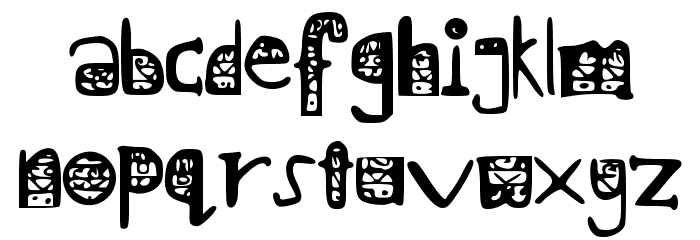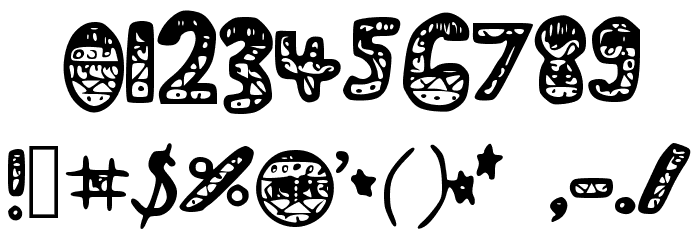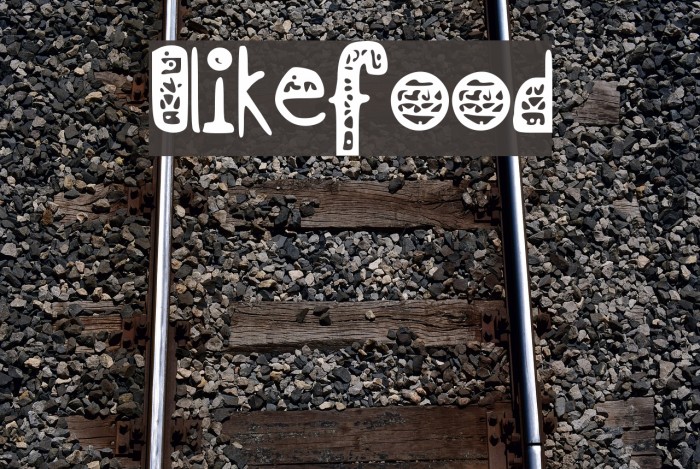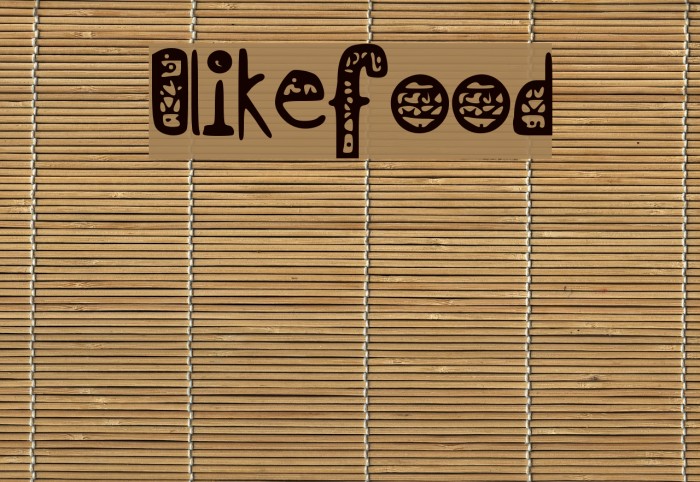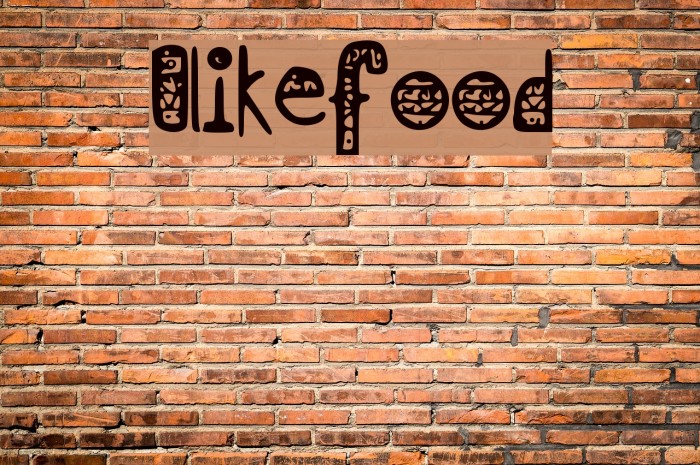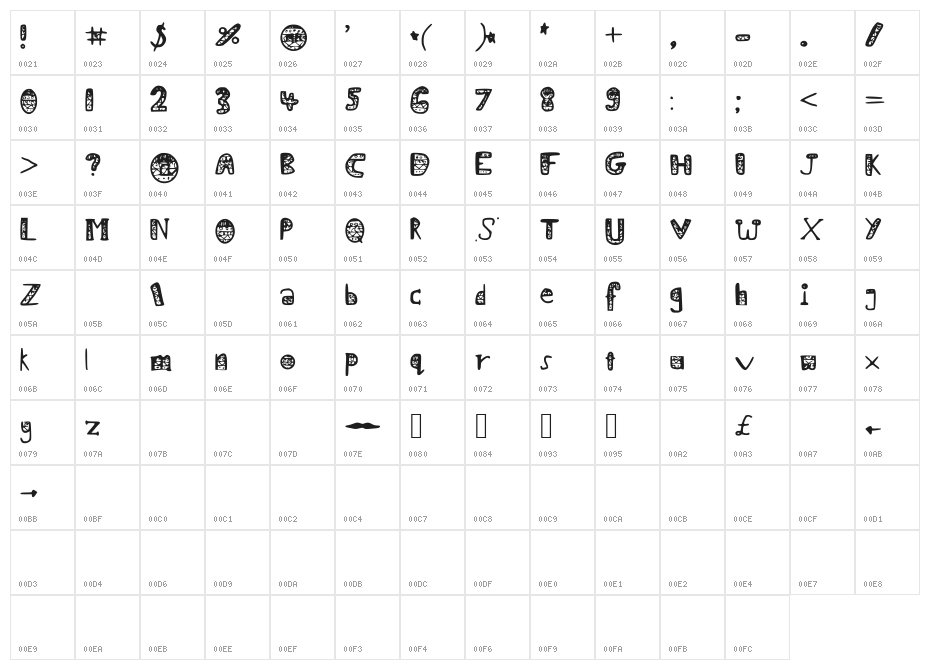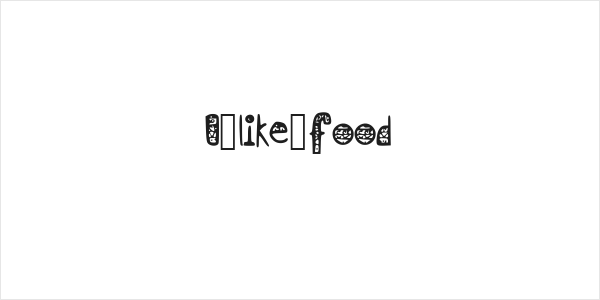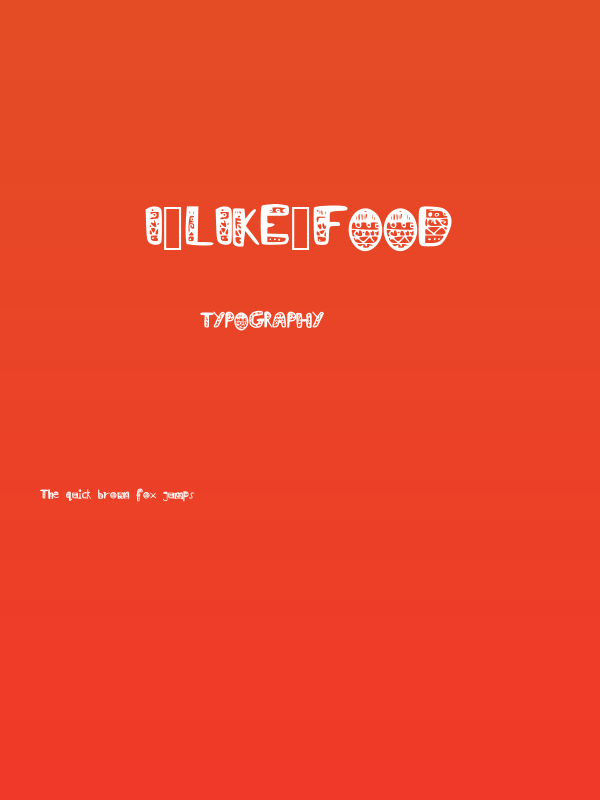
I_like_food Font
This playful and whimsical font features bold, rounded characters filled with intricate patterns and designs. Each letter and number is uniquely decorated, giving it a handcrafted and artistic feel. The font's style is reminiscent of doodles or sketches, with a lively and energetic appearance. The characters are well-defined, with a consistent thickness throughout, making them easily readable despite their decorative nature. This font is perfect for projects that require a fun and creative touch, such as children's books, posters, or party invitations.
A playful, decorative font with bold, patterned characters.
- Proposed Projects: Ideal for children's books, playful posters, party invitations, and creative branding.
- Overall Style: Whimsical, Artistic